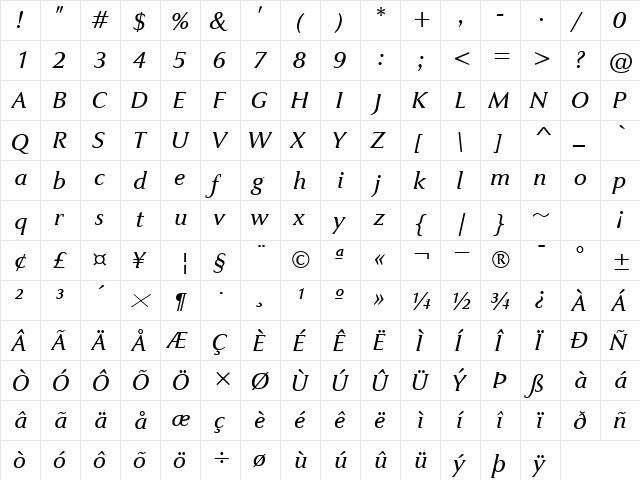
JaguarJC BookItalic
Design Context for JaguarJC Typeface
JaguarJC offers clean, dependable letterforms without strong stylistic allegiance, making it a practical choice for designers who need flexibility. The dynamic lean of this cut emphasises speed and emphasis in any layout.
Pro Tip: Try JaguarJC for annotation and caption copy alongside an upright companion — the contrast in angle creates a dynamic but ordered typographic system.